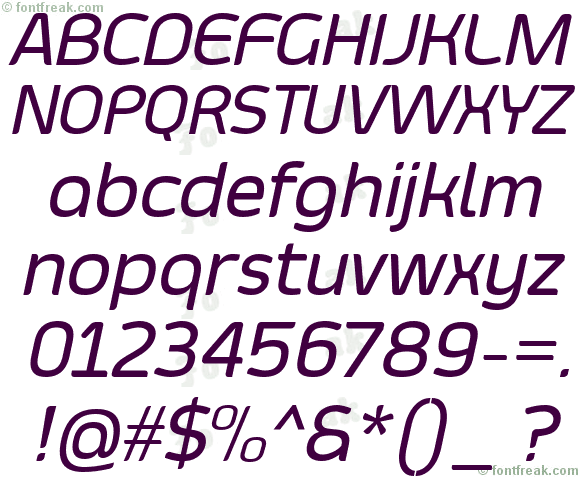
Smoolthan Regular-Italic
The Smoolthan Regular-Italic font, created by Situjuh Nazara in 2014, is a distinctive typeface that falls within the sans-serif category. Characterized by its medium stroke weight and smooth curves, this font design exudes a contemporary feel while maintaining versatility. The italic style adds a sense of movement and dynamism, making it an excellent choice for various creative applications. The spacing between characters is well-balanced, ensuring readability while enhancing its aesthetic appeal.
The Smoolthan Regular-Italic font is particularly well-suited for several use cases. Its elegant design makes it ideal for wedding invitations, where a touch of sophistication is essential. Additionally, it can be effectively utilized in movie posters, delivering a modern vibe that captures attention. Restaurant menus can also benefit from this font, as it lends an inviting look that complements the dining experience. Furthermore, content creators can use it in marketing materials and social media graphics, making their messages stand out with flair.
Target audiences for this font include graphic designers seeking innovative typefaces, small business owners looking to create a unique brand identity, and content creators who want to enhance the visual appeal of their projects. The free availability of the Smoolthan Regular-Italic font makes it accessible for anyone eager to elevate their design work.
What sets the Smoolthan Regular-Italic font apart is its balance of style and functionality. Its modern design, combined with the ease of use, allows for creative expression across various mediums. For those interested, a Smoolthan Regular-Italic font free download offers an opportunity to incorporate this striking typeface into their design arsenal and elevate their projects with a touch of contemporary elegance.